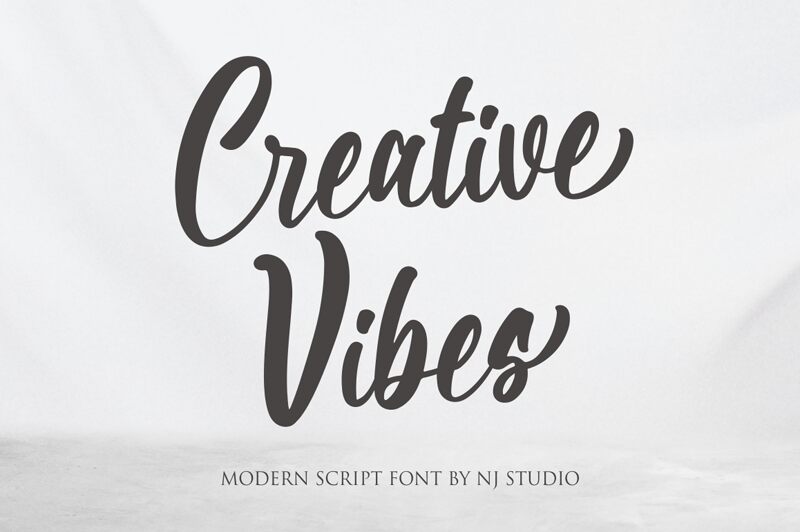
Creative Vibes
Creative Vibes is a captivating brush-style font designed by NJ Studio. Exuding a vibrant and expressive personality, this typeface boasts a dynamic appearance with its bold, organic strokes and fluid, hand-crafted aesthetic. The font's versatile nature allows it to seamlessly transition between playful and elegant, making it a versatile choice for a wide range of design projects.
The font's distinctive character and artistic flair make it an excellent selection for branding, packaging, and editorial designs, where a touch of creativity and character is desired. Its ability to convey a sense of energy and passion makes it an ideal choice for headlines, logos, and marketing materials, effectively capturing the attention of the viewer.